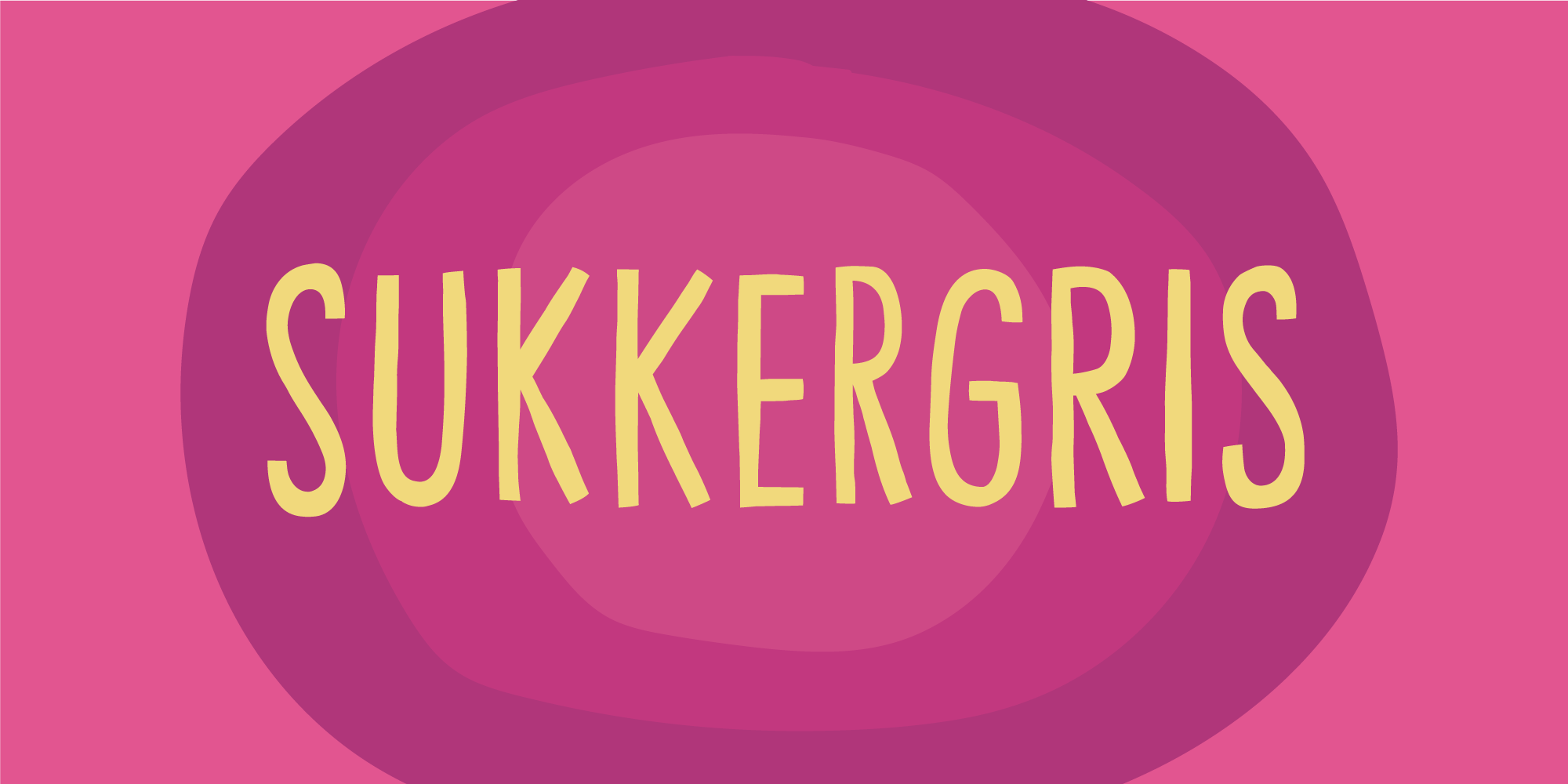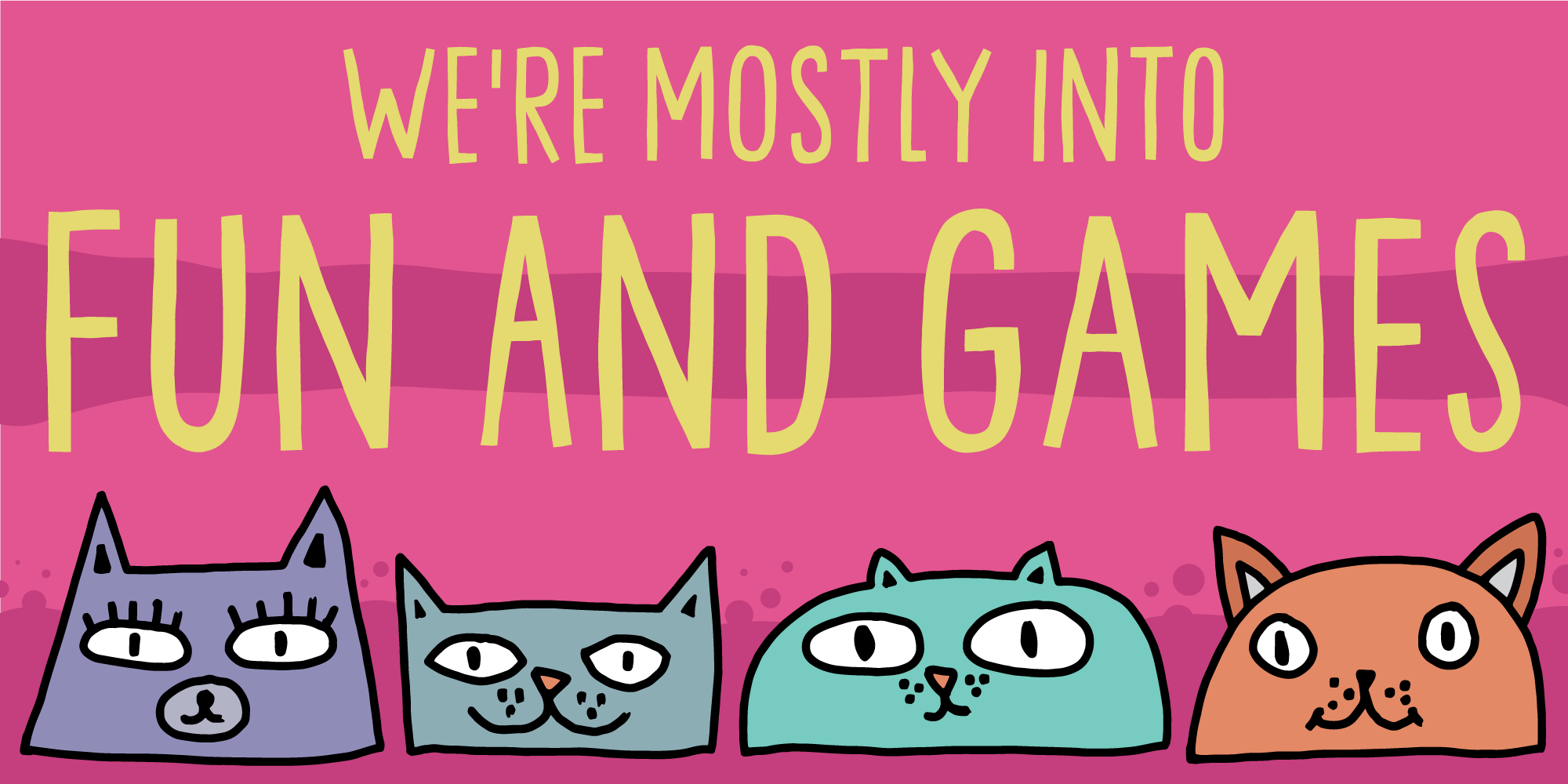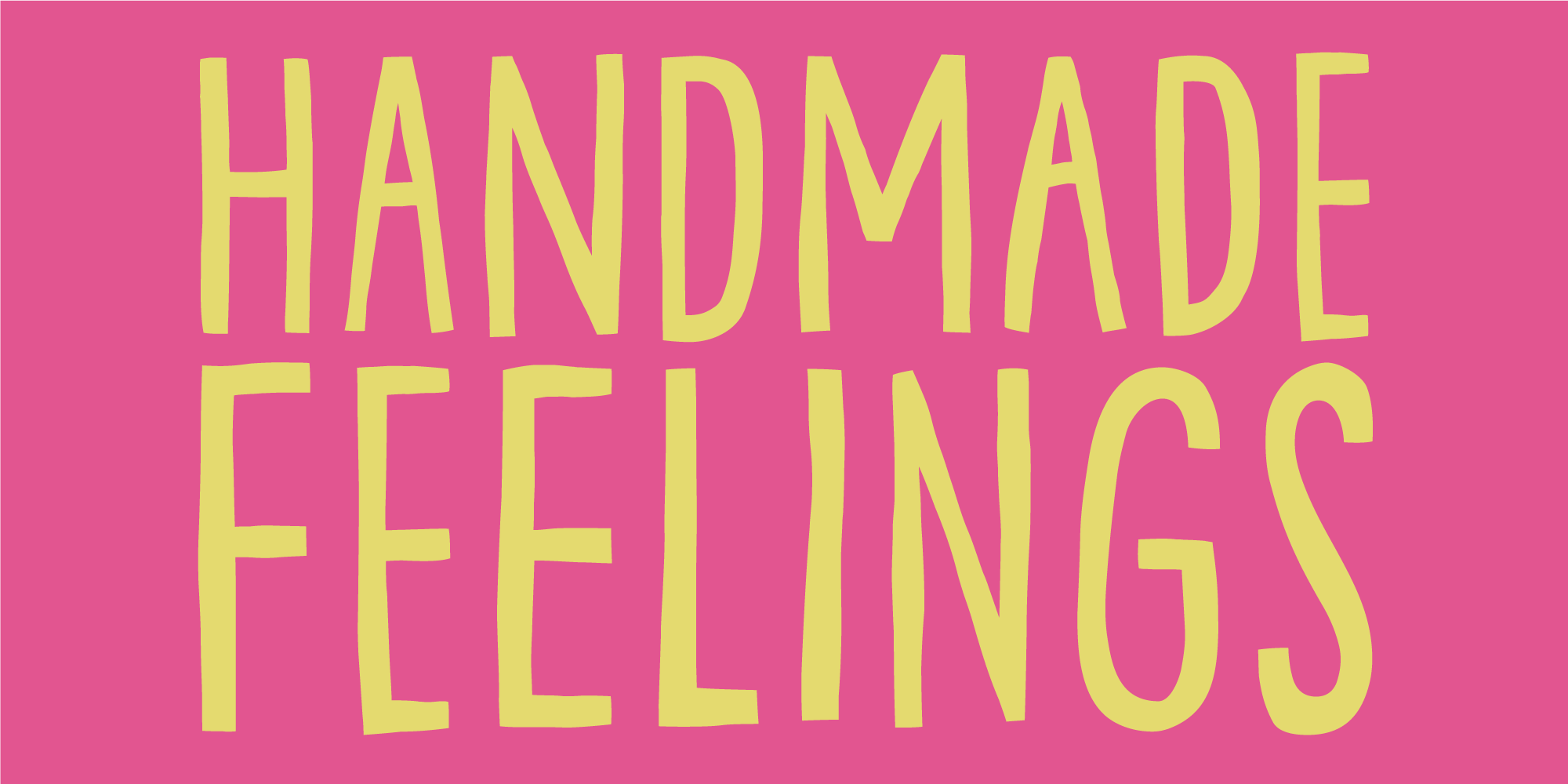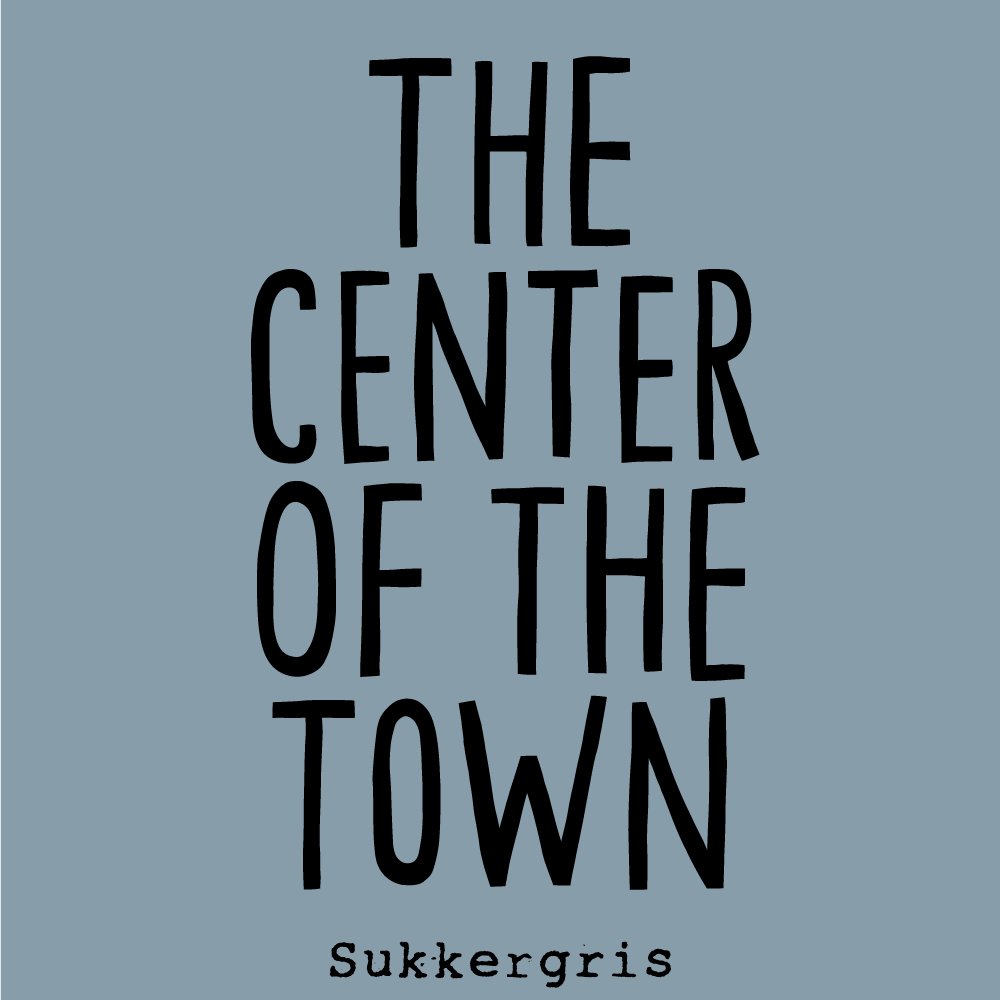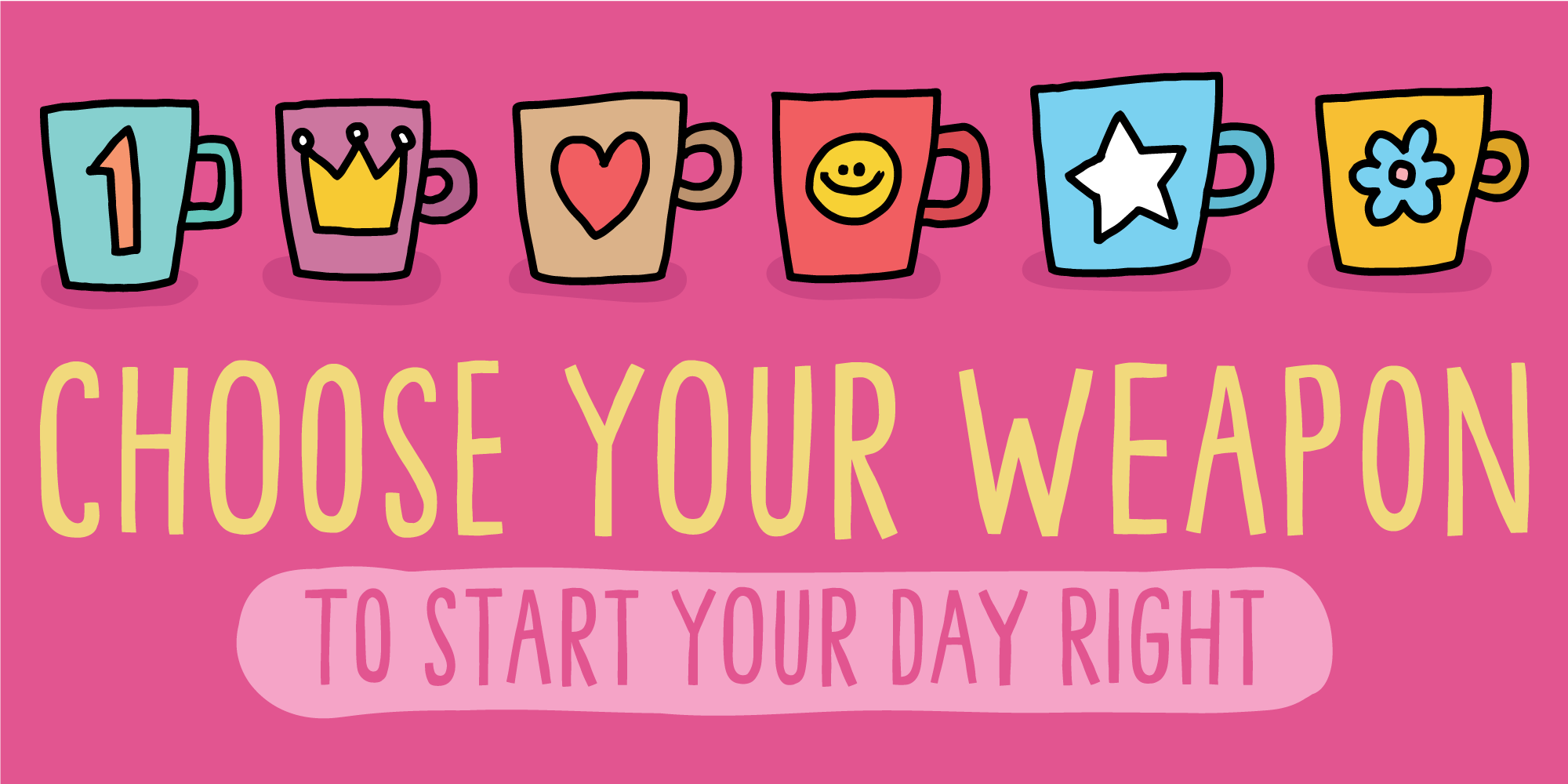
Sukkergris
Need a catchy headline font with a clear handmade and organic look? Look no further, because Sukkergris is here to do the job! Each letter is handmade and manually cleaned up, but keeping the original quirky curves. I have added 6 different versions of each letter, which automatically cycle as you type. I also added a set of small caps, just because I think they look awesome!